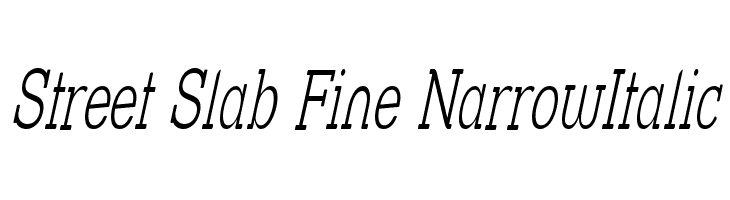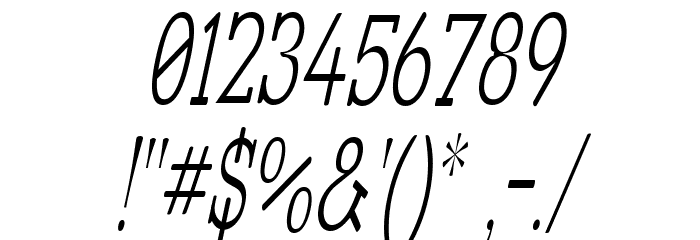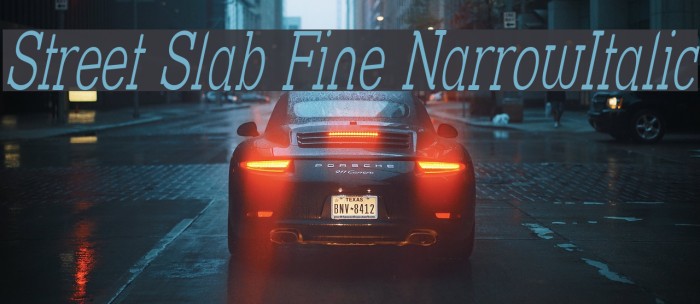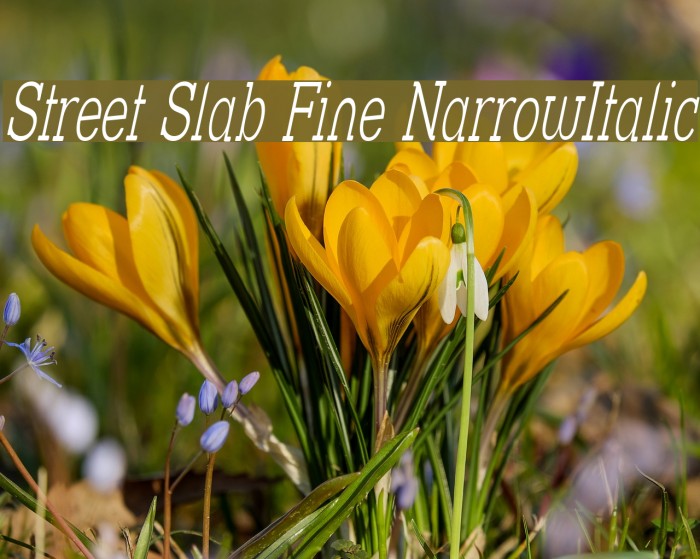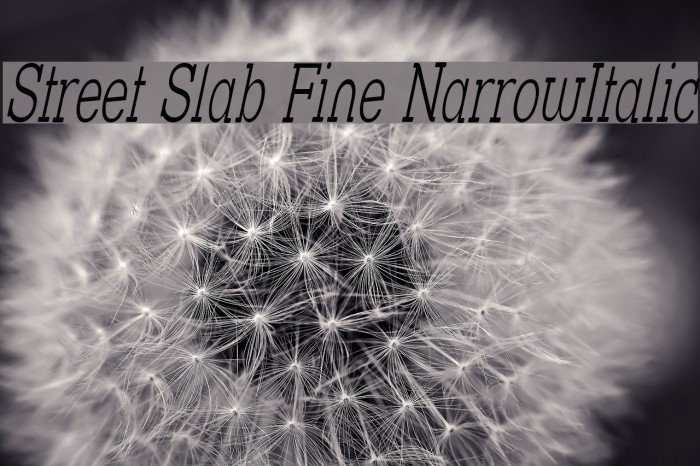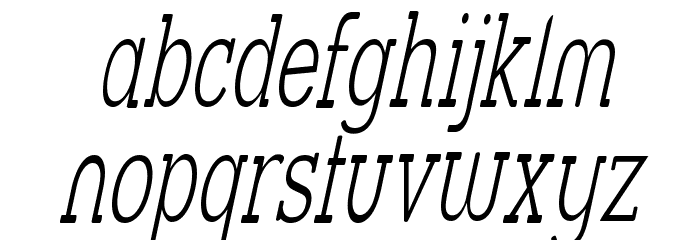
Street Slab Fine NarrowItalic Font
This font features a refined and elegant style with a narrow and italicized form. The characters exhibit a fine balance between modern aesthetics and classic appeal, making it suitable for sophisticated design projects. The uppercase letters are tall and slender, while the lowercase letters maintain a consistent flow, enhancing readability. Numbers and special characters are designed with the same attention to detail, ensuring uniformity across all elements. The overall design is sleek, with a subtle slant that adds a dynamic feel without compromising legibility.
A refined, narrow, and italicized font with a modern yet classic style.
• Font: Street Slab Fine NarrowItalic
• Proposed Projects: Ideal for fashion magazines, luxury branding, elegant invitations, and editorial design.
• Category: Slab Serif
• Bold: No
• Italic: Yes
• Weight: Regular
• Width: Condensed
• Character Spacing: Normal
• Contrast: Medium
• Overall Style: Modern
• Use Case: Headlines, Logos